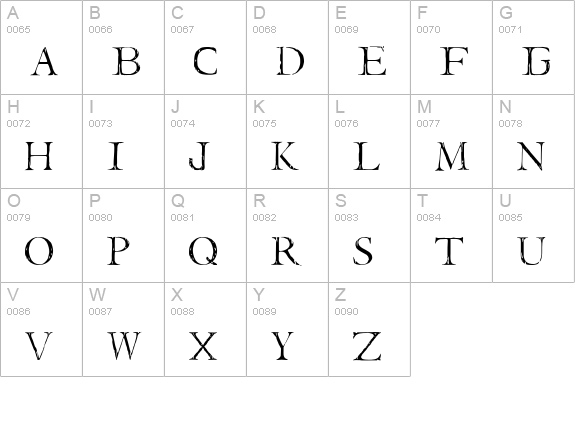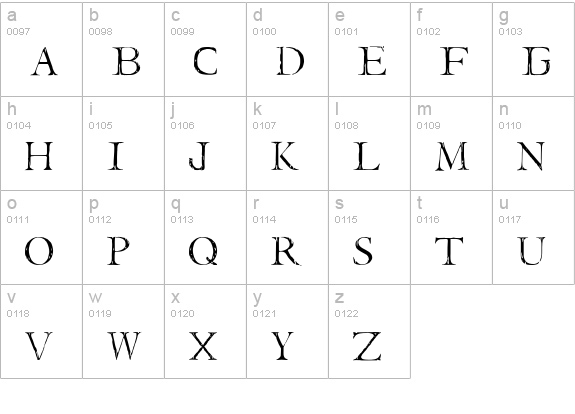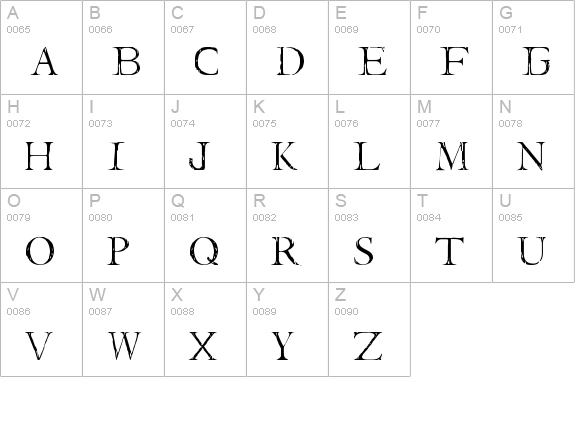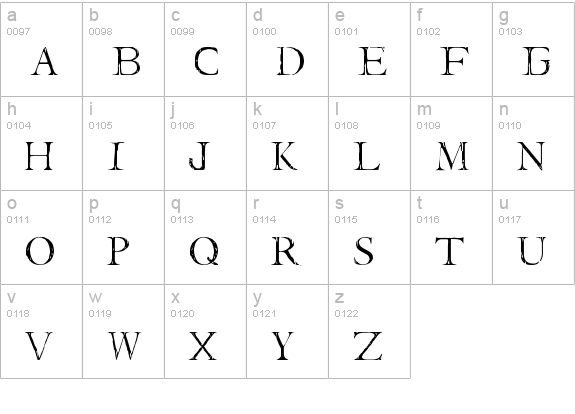
I Still Know Font Details
Introducing I Still Know font, a stunningly versatile and captivating typeface that will undoubtedly elevate your design projects to new heights. This font exudes an air of sophistication and elegance, making it the perfect choice for a wide range of creative endeavors. I Still Know font is a true testament to the power of typography, with its meticulously crafted letterforms and intricate details that are sure to catch the eye. With its clean lines and balanced proportions, this font offers a harmonious blend of modernity and classic design, making it suitable for both contemporary and timeless designs. One of the standout features of I Still Know font is its versatility. Whether you are creating a logo, designing a website, or crafting a stunning poster, this font will effortlessly adapt to any style or theme, adding a touch of professionalism and refinement to your work. And the best part? I Still Know font is available for free download at FontsMarket.com. This means that you can enhance your designs without having to worry about breaking the bank. With just a few clicks, you can have this exceptional font at your fingertips, ready to be used in all your creative endeavors. So why wait? Take your designs to the next level with I Still Know font. Download it for free today at FontsMarket.com and let your creativity soar.